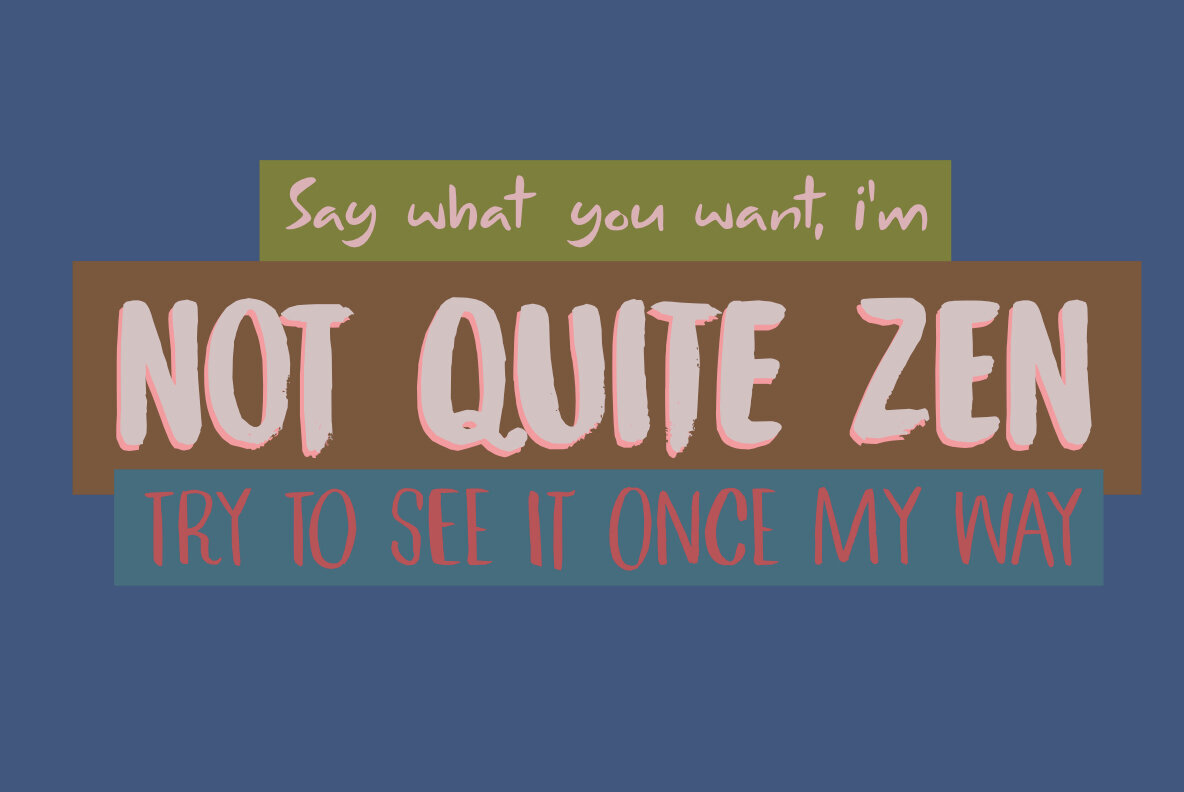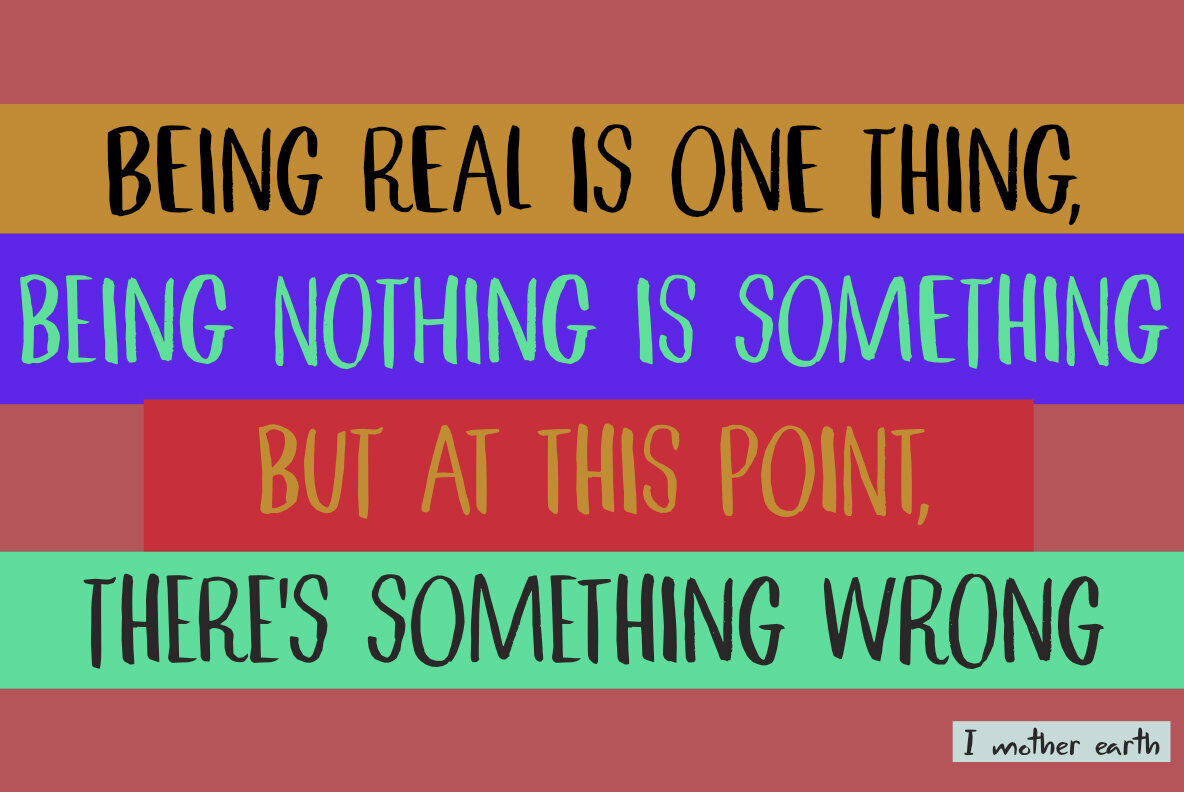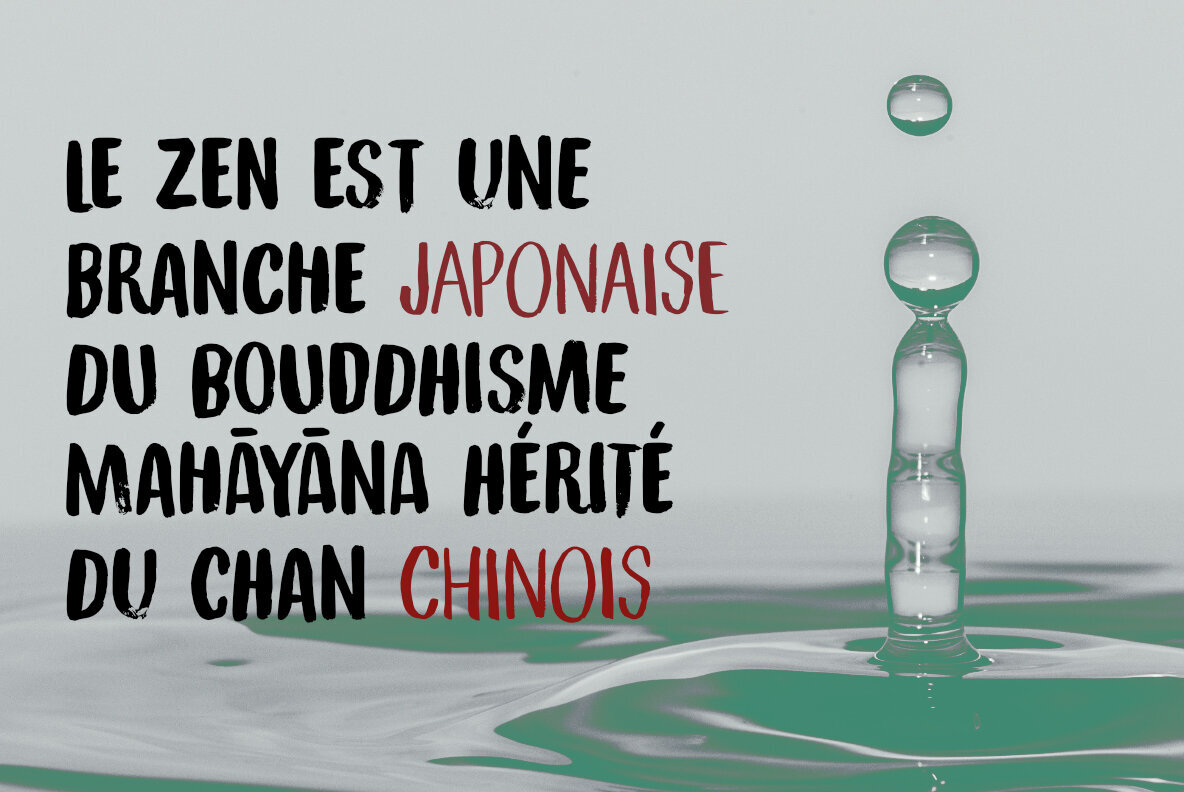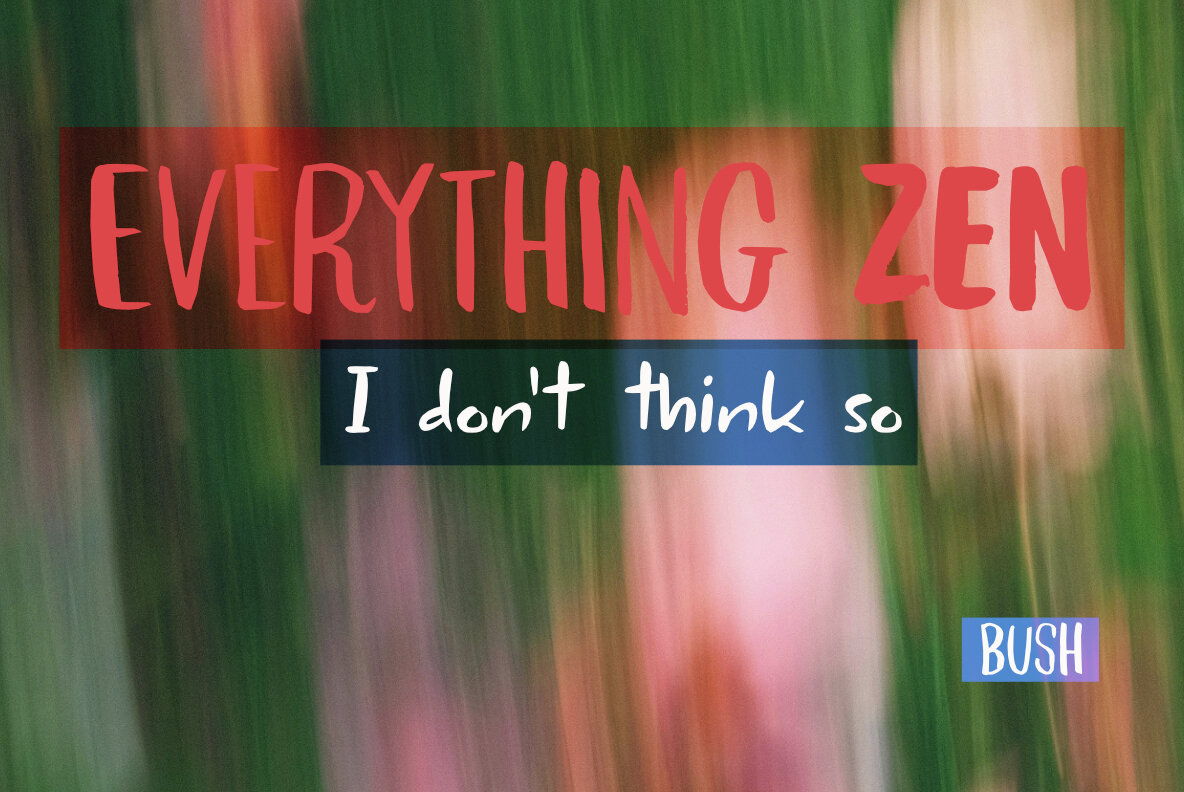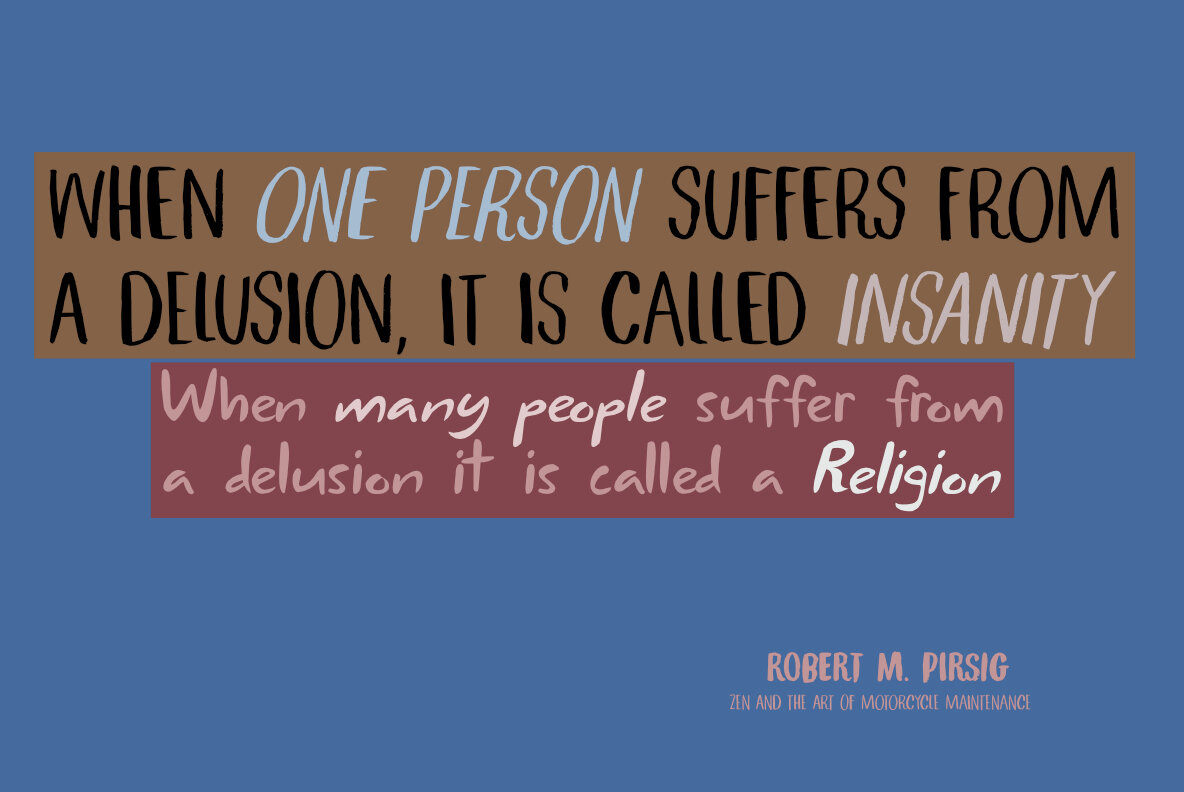
Not Quite Zen Font
Not Quite Zen Brush Regular
Not Quite Zen Regular
Not Quite Zen Script Regular
Not Quite Zen Italic
Not Quite Zen Brush Italic
Not Quite Zen Script Italic
Not Quite Zen captures the spirited energy of '90s rock through expressive brush and script styles. This family includes three fonts—two with bold brushwork and an accompanying script—crafted to work seamlessly together. The result offers designers a flexible toolkit for creating standout headlines, impactful posters, or eye-catching social graphics. Each font in the family brings its own rhythm and texture, adding visual interest and personality to your projects. Whether you're designing an album cover, event flyer, or brand assets, the dynamic mix of brush and script options provides creative versatility while maintaining a cohesive look.Not Quite Zen Font Family